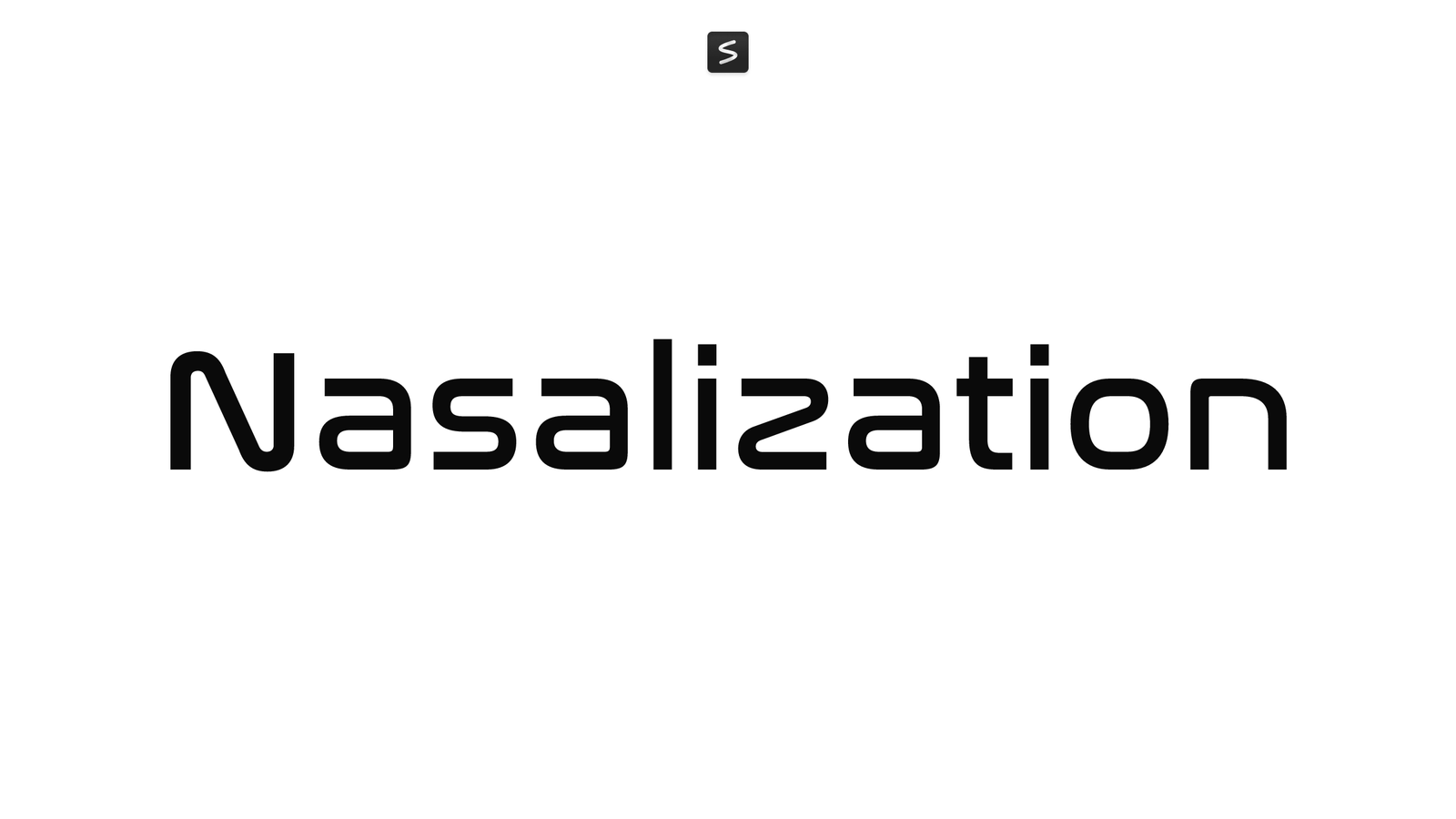
Nasalization is a sans-serif font by Typodermic Fonts, drawn from NASA’s 1975 “worm” logo. It refines that modular geometry into a clean, space-age design first released in 1997 as an all-caps typeface. The family has since expanded to six weights with italics, covering Latin, Greek, Cyrillic, and Vietnamese.
Its high x-height and smooth proportions keep text readable across any size, while contextual alternates and optional cross-barred forms give you stylistic control when you need it. The letterforms feel precise and engineered, carrying the feel of aerospace design without sacrificing legibility.
Nasalization works well for branding, logos, interface design, headlines, and any project that benefits from a forward-looking, technical aesthetic. It’s a straightforward choice for work that needs clarity and a modern edge.